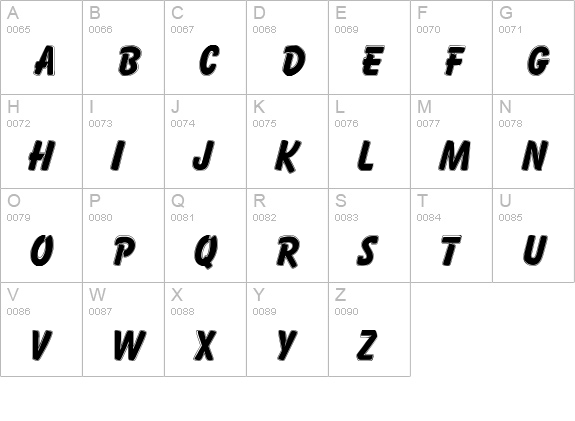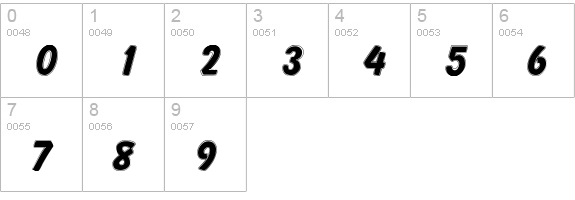
Balloonist Inline SF Font Details
Balloonist Inline SF font is a whimsical and playful typeface that adds a touch of fun to any design project. With its unique balloon-like shapes and inline style, this font is perfect for creating eye-catching headlines, posters, and logos. The rounded edges and bold lines give Balloonist Inline SF a cheerful and lively appearance that will surely capture attention. Best of all, Balloonist Inline SF font is available for free download at FontsMarket.com. Whether you're a graphic designer, a blogger, or simply looking to add a bit of charm to your personal projects, this font is a fantastic choice. Don't miss out on the opportunity to use this delightful typeface in your next creative endeavor!